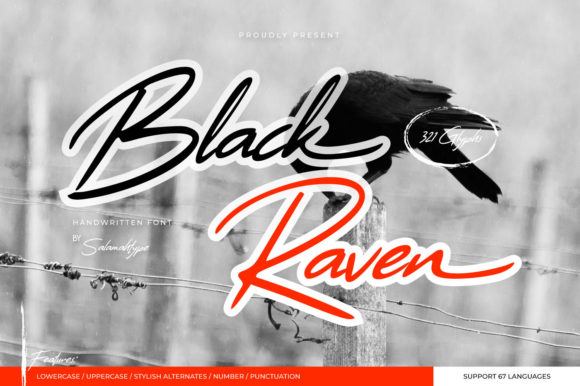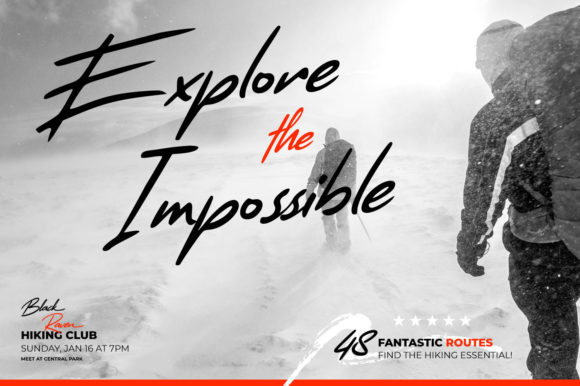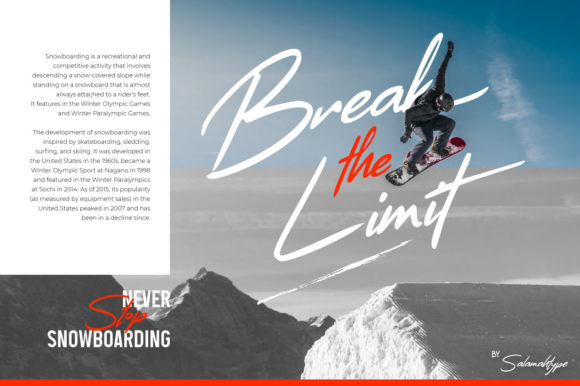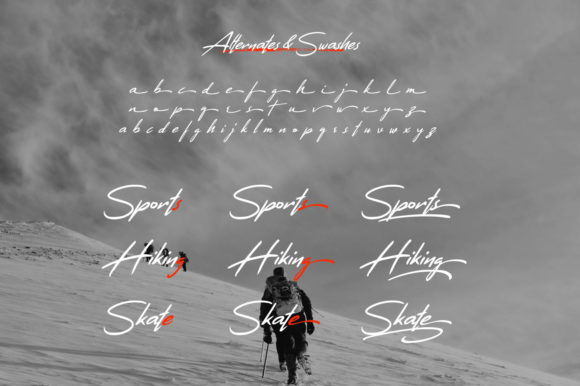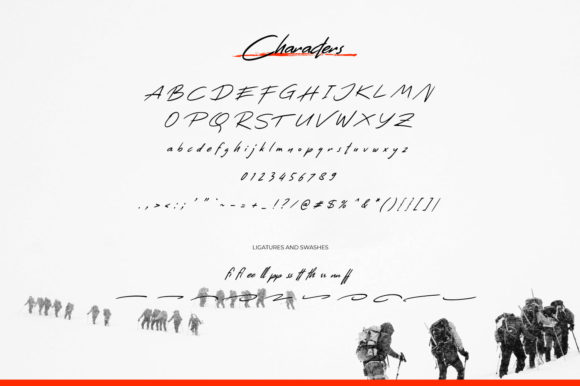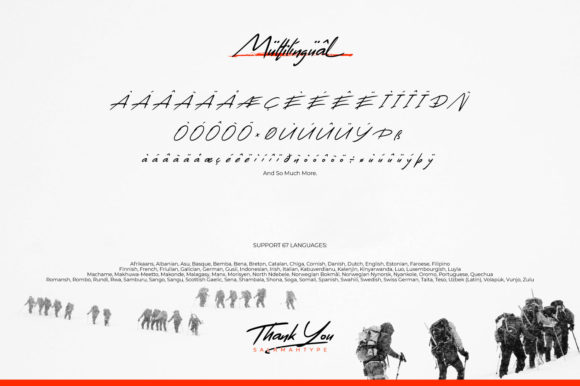
Black Raven Font
About Black Raven Font
Black Raven is an asymmetrical and cool script font with a natural style. This font is perfect for branding projects, logos, social media posts, advertisements, product packaging, product designs, label, photography, watermark and so much more. Black Raven is PUA encoded which means you can access all of the glyphs and swashes with ease!